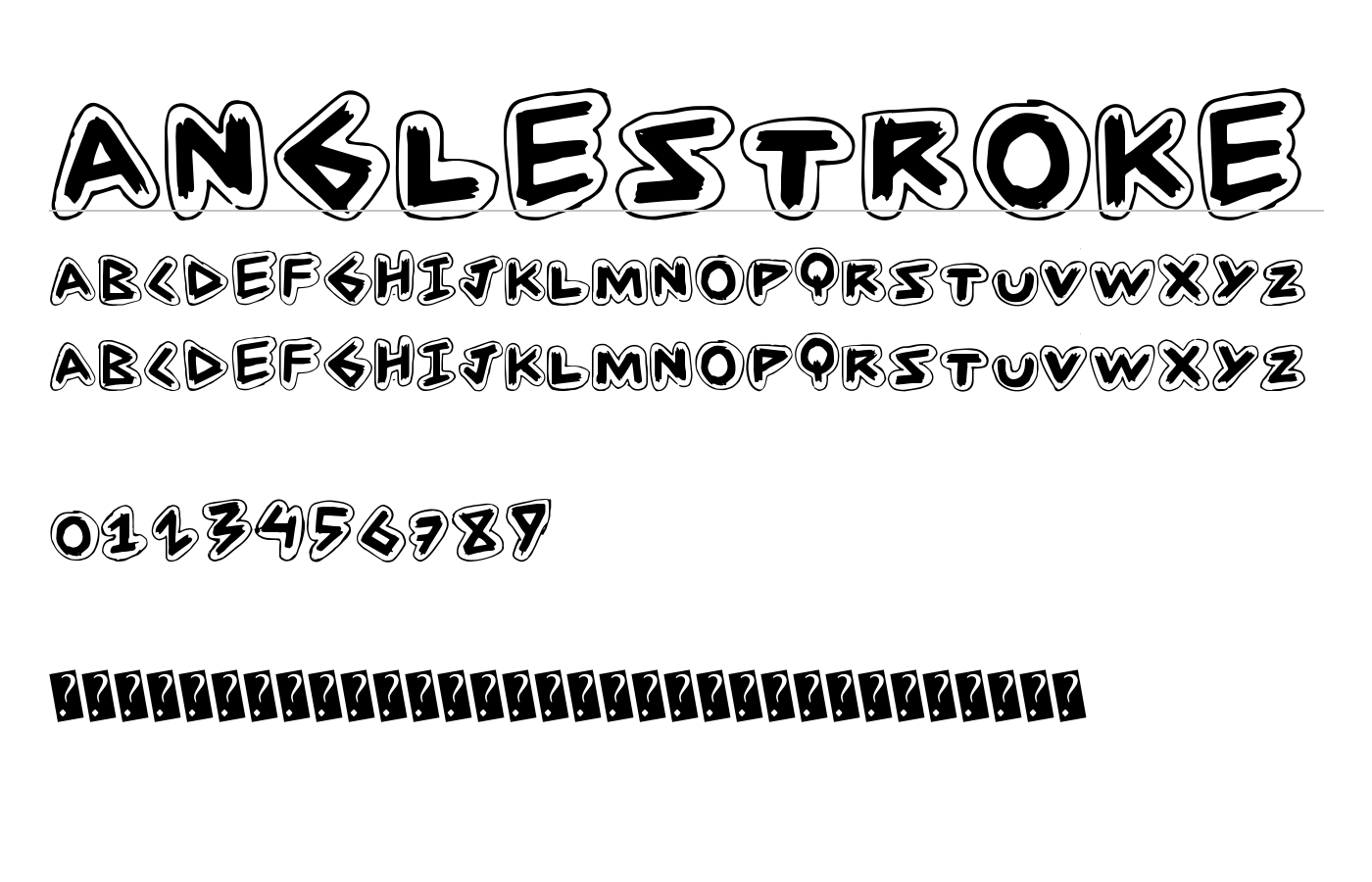
AngleStroke is a playful, bold sans serif font with a hand-drawn, irregular style marked by sharp, angular strokes and uneven outlines. It conveys a youthful, energetic personality that works well for fun and informal designs such as posters, comics, or creative branding. Its quirky shapes and casual vibe make it a great choice for eye-catching headlines and lively visuals.
AngleStroke Font